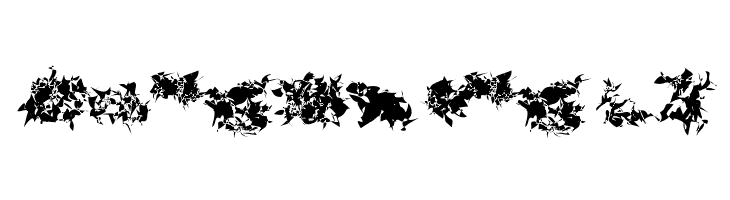
A decorative font with a camouflage-like pattern, ideal for artistic projects.
An abstract, camouflage-inspired font with fluid, organic outlines.
An abstract, camouflage-inspired font with bold, fluid outlines and organic shapes.
An abstract, stencil-like font with bold, irregular shapes resembling camouflage patterns.
An abstract, fragmented font with a camouflage-like appearance.
An abstract, outline font with a camouflage-like, artistic design.